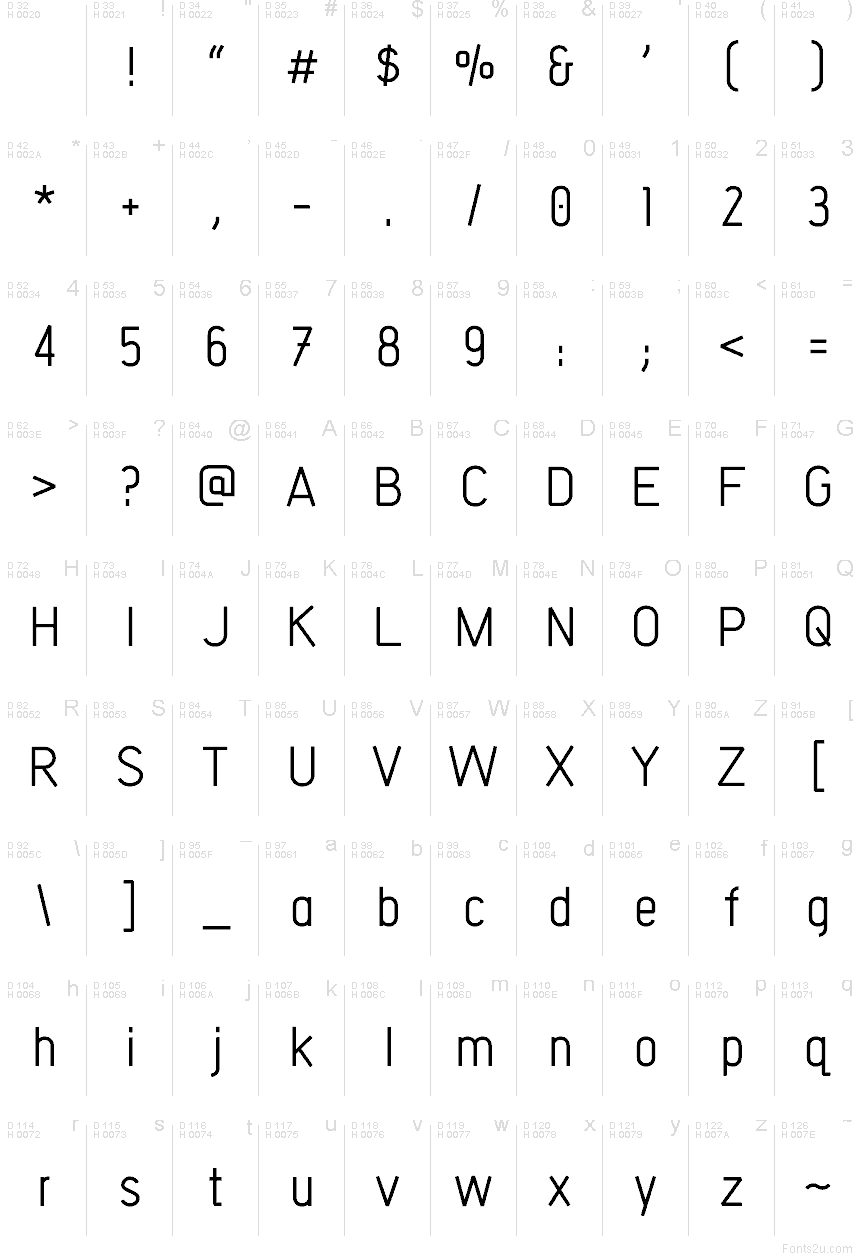
Maneuver Thin
Maneuver Thin font by Mark L of Factus Creative is a free modern sans serif typeface in the Maneuver family that solves the “too light to read” problem with crisp, disciplined forms. Its slim strokes, squared curves, and even rhythm feel technical yet approachable, giving layouts a clean, engineered calm instead of visual noise. Generous spacing keeps each letter breathable, so ultra-light text still holds up on screen and in print.
Using Maneuver Thin, you get a refined, tech-forward voice that works beautifully for UI labels, dashboards, pitch decks, product packaging, posters, editorial layouts, and minimalist brand systems. This free font shines in larger sizes where its subtle geometry can be appreciated, while still staying legible in short blocks of copy. Pair it with a neutral grotesque or a simple serif for body text, and let Maneuver Thin carry the headings, navigation, and key highlights.